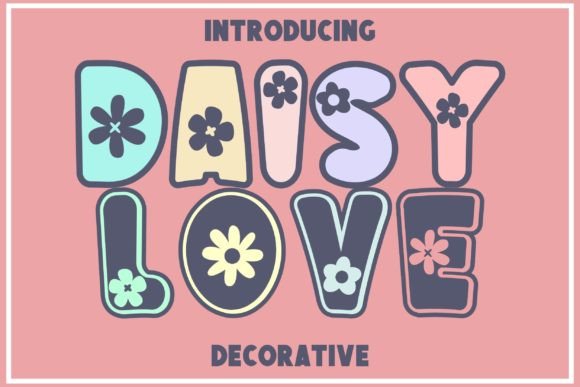
Welcome to the world of Daisy Love Font - the ultimate choice for those looking to add a touch of cuteness and joy to their designs. Created by MDF, this decorative font is a must-have for any flower shop, as it perfectly embodies the essence of floral beauty.
If you are searching for the best font for your flower shop, look no further. Daisy Love is the perfect option. It is ideal for creating logos, titles, and brand names that will instantly grab your customers' attention. Its fun and playful style will leave a lasting impression on your audience, making your brand stand out from the competition.
Not just for flower shops, Daisy Love is a versatile font that can be used for various purposes. Its adorable and charming appearance is perfect for cartoon-related designs and children's games. Additionally, it works great for quotes, book covers, posters, and any creative project that requires a touch of happiness.
Daisy Love Font is the perfect choice for those looking to add a unique and creative touch to their designs. Its captivating and emotional appearance will evoke a sense of joy and happiness that will resonate with your audience. So why wait? Download Daisy Love now and elevate your designs to the next level!